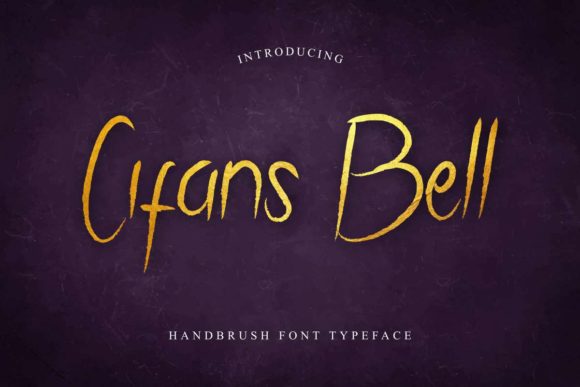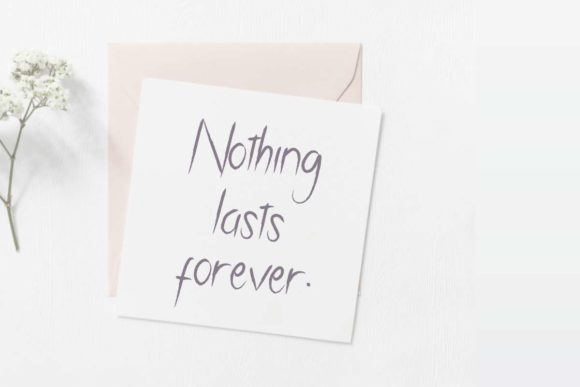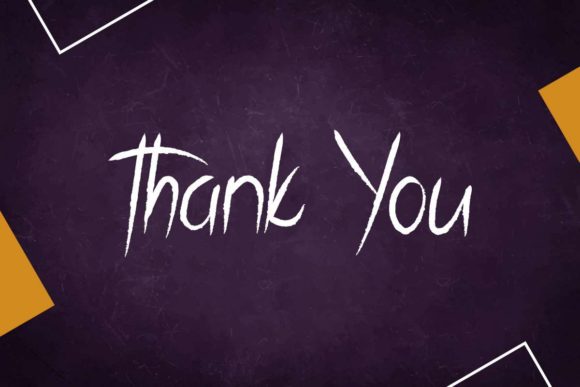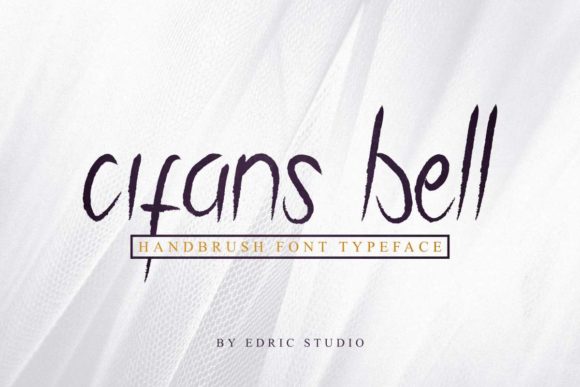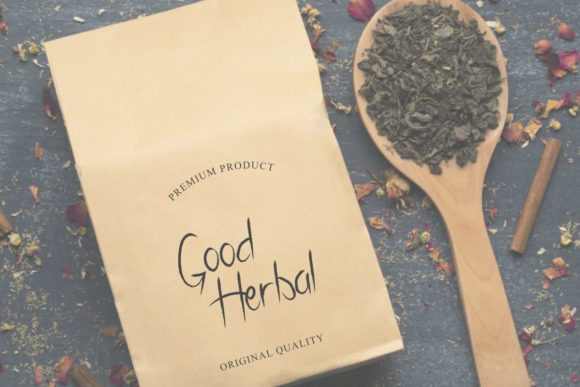
Cifans Bell Font
About Cifans Bell Font
Cifans Bell simplifies elegance into one truly outstanding font. This font results out of a stunning pairing of a brush pen that makes it look incredibly endearing and authentic. Use this gorgeous and unique handwritten font to bring any DIY project to life!